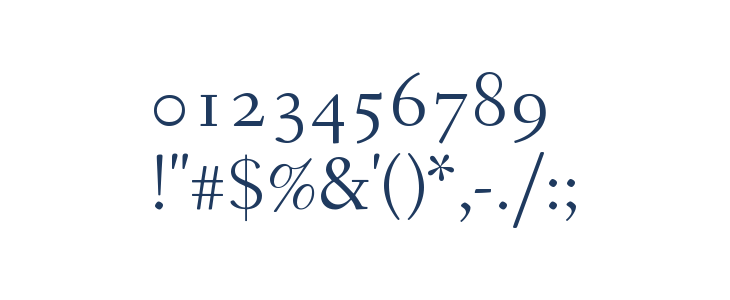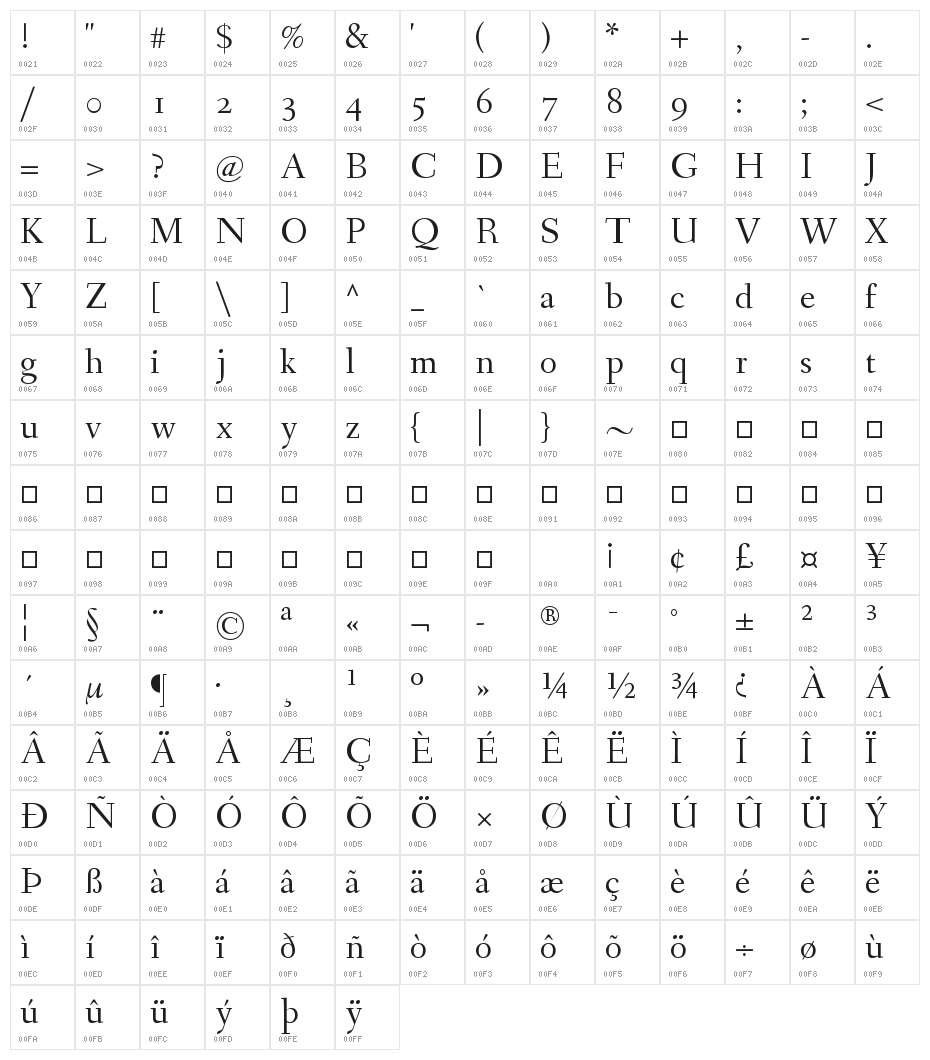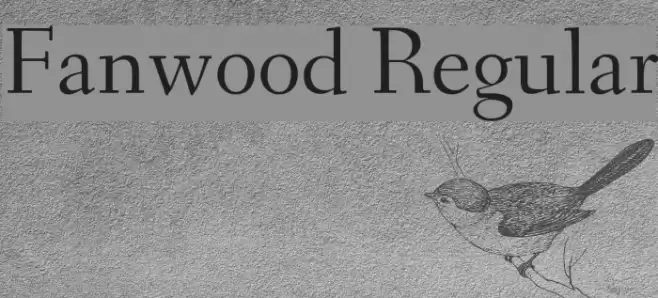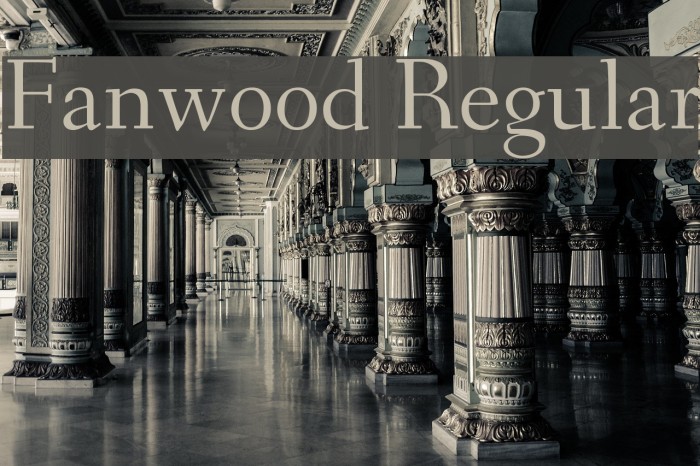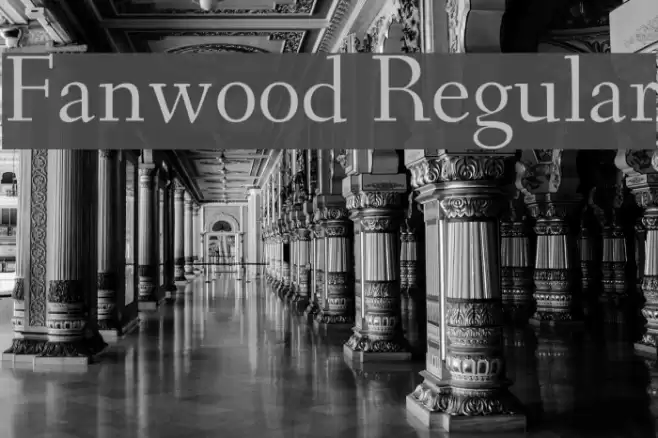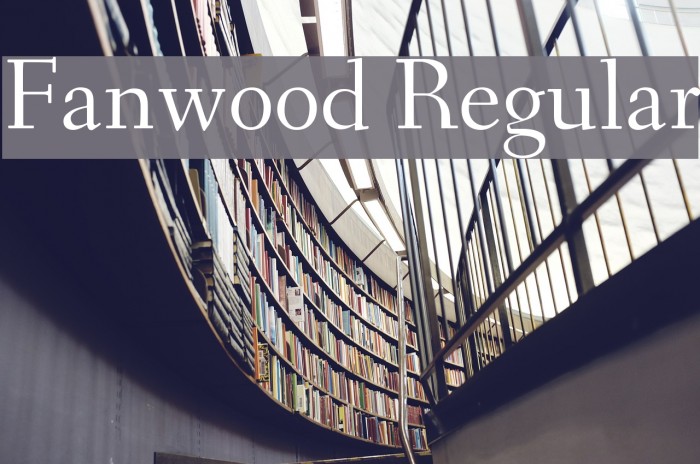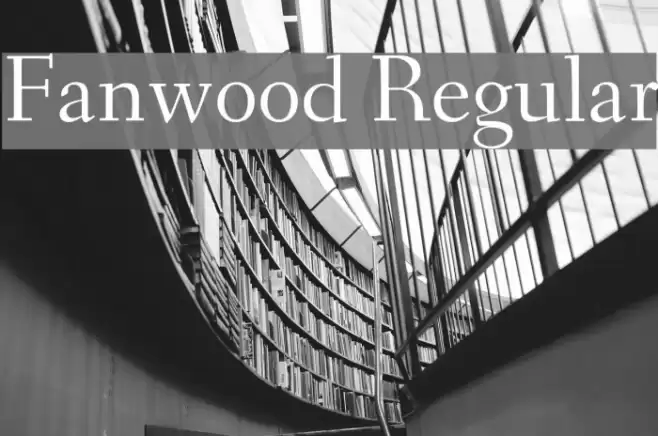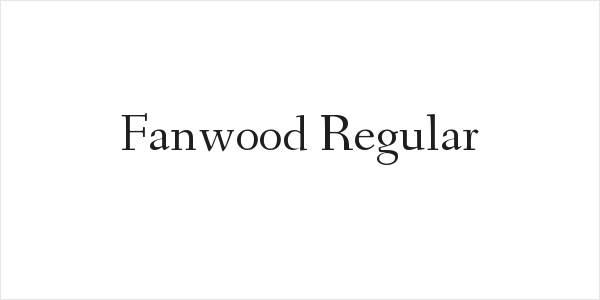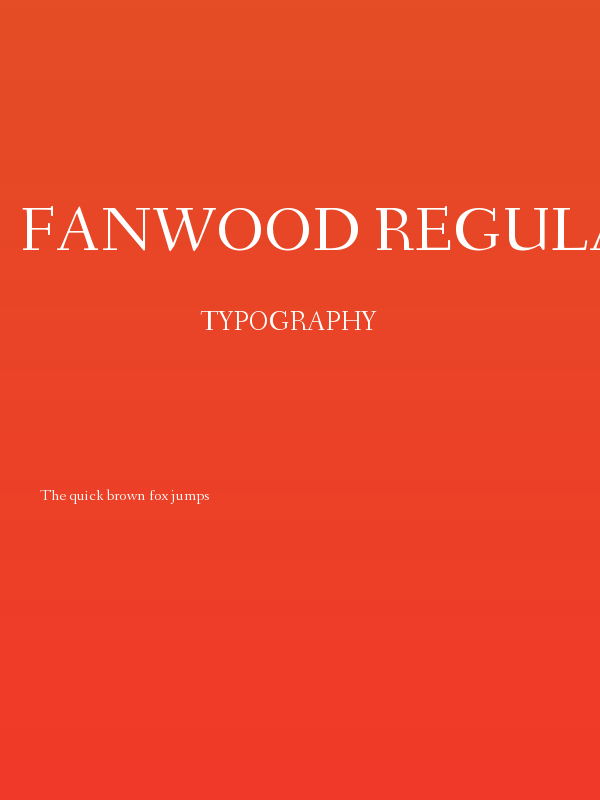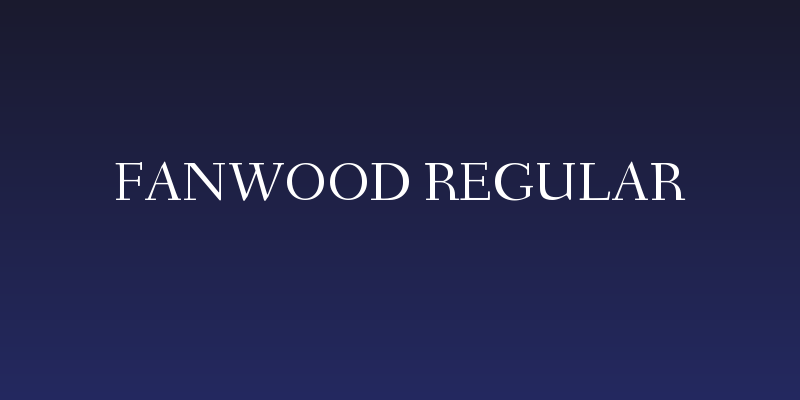
Fanwood Regular Font
Fanwood Regular Description
This font features a classic serif design with elegant and refined strokes. The uppercase letters are well-proportioned, with a slight contrast between thick and thin lines, giving it a sophisticated appearance. The lowercase letters maintain a consistent style, with smooth curves and sharp serifs that enhance readability. The numerals are distinct and clear, making them suitable for both text and display purposes. Special characters are thoughtfully designed, maintaining the overall aesthetic of the font. This typeface exudes a timeless quality, making it versatile for various design applications.
| Proposed Projects | Ideal for editorial design, book covers, formal invitations, and branding projects that require a touch of elegance. |